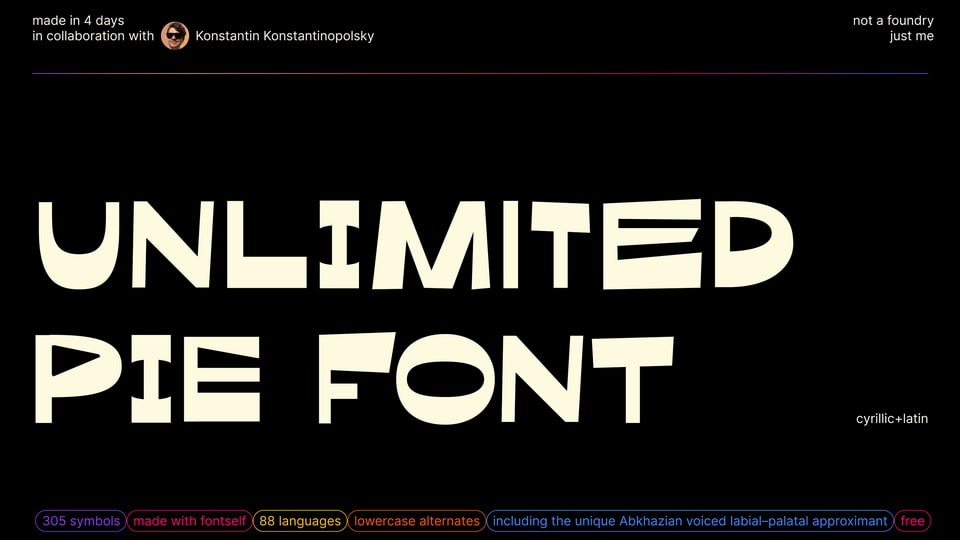
Download Unlimited Pie font, a funny, diverse and slightly dramatic display typeface. With its unique character Unlimited Pie font can be used everywhere.
Designer: Ekaterina Bakirova